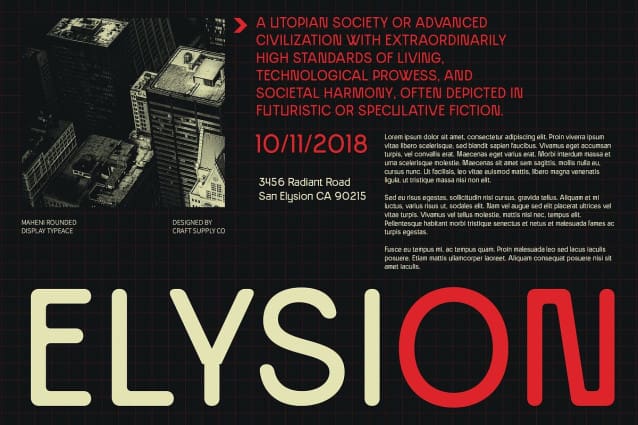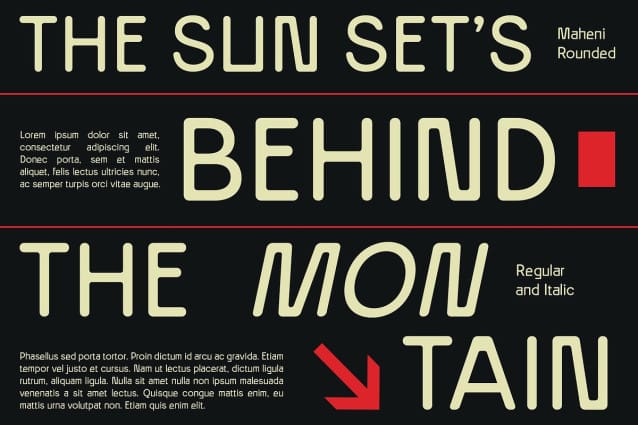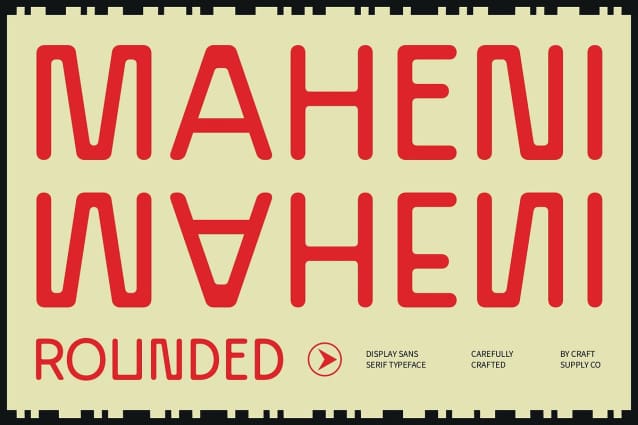
Maheni Rounded Font
Maheni Rounded Font is a modern sans serif font characterized by its grotesque and rounded shapes, seamlessly merging geometric elegance with soft curves. This thoughtful design creates a contemporary feel, making it a versatile choice for various applications, from branding to digital interfaces. Its clean lines and minimalist aesthetic ensure clarity and readability, essential for effective communication in today’s design landscape.
Friendly and Readable Character With its approachable character, Maheni Rounded strikes the perfect balance between functionality and aesthetics. The rounded shapes evoke a sense of friendliness and warmth, making it an ideal font for projects that seek to engage and connect with audiences. Whether used in marketing materials, web design, or branding efforts, this font conveys a welcoming and modern vibe that resonates well across diverse contexts.
Versatile Applications for Modern Design Maheni Rounded excels in a variety of design applications, from sleek corporate branding to casual promotional materials. Its versatility allows it to adapt effortlessly to different styles, making it suitable for everything from elegant logos to eye-catching posters. The font’s modernity ensures it remains relevant in any design project, while its rounded effect adds a unique charm that enhances visual appeal.